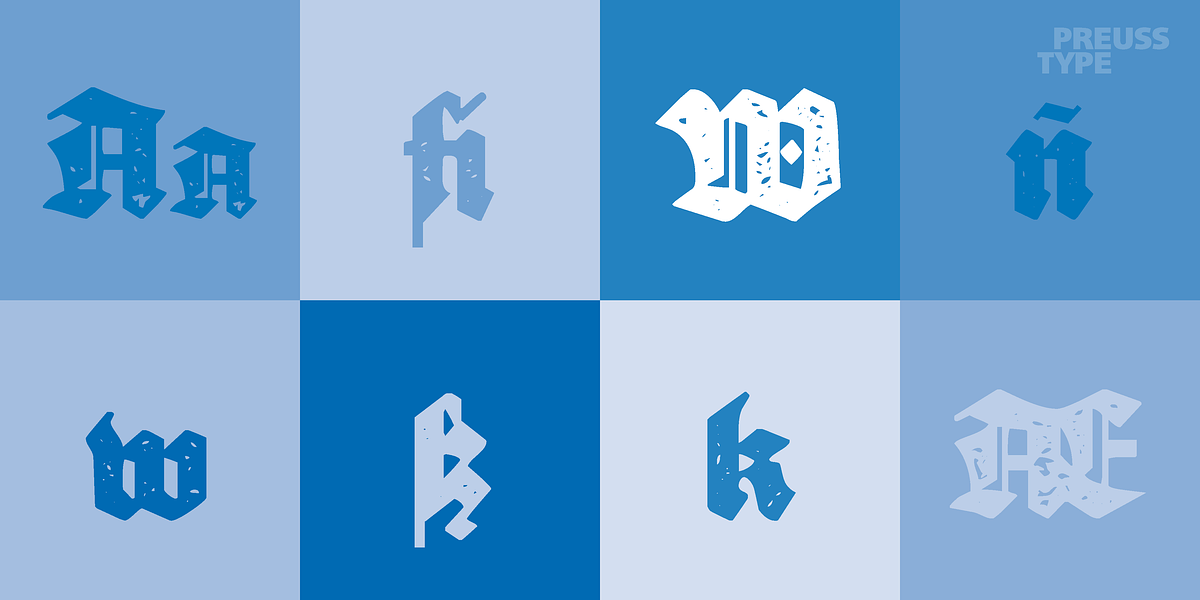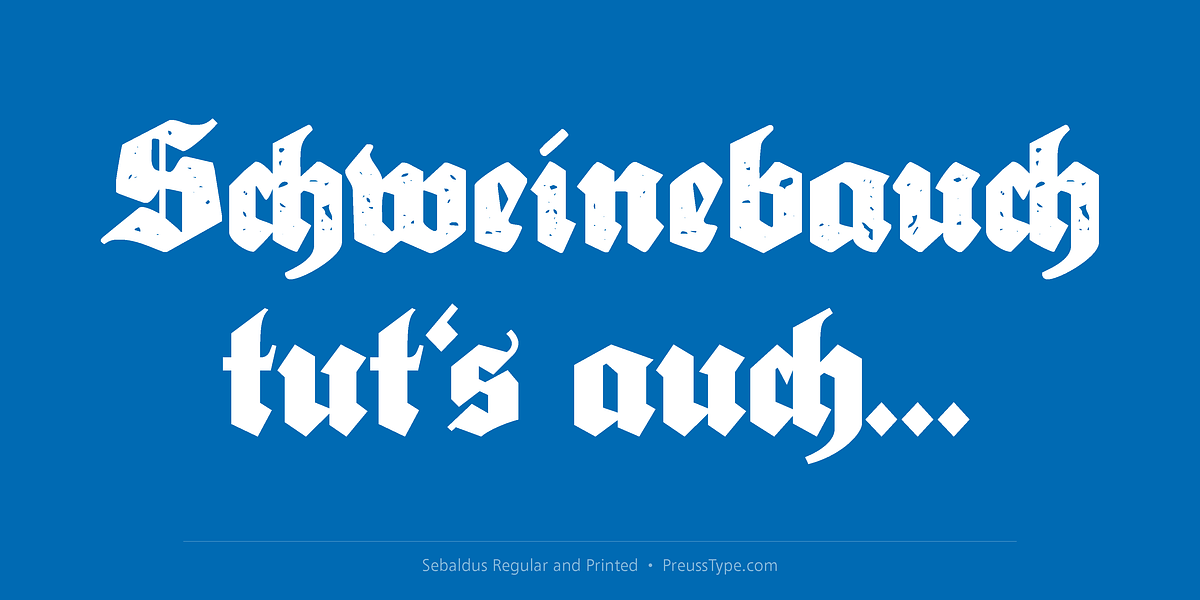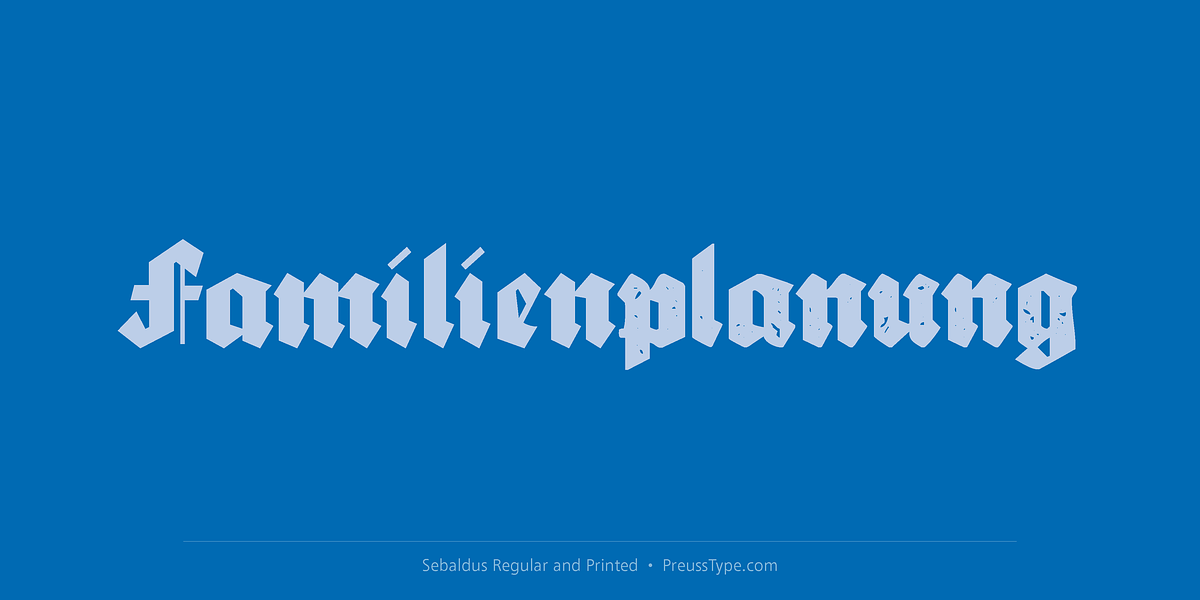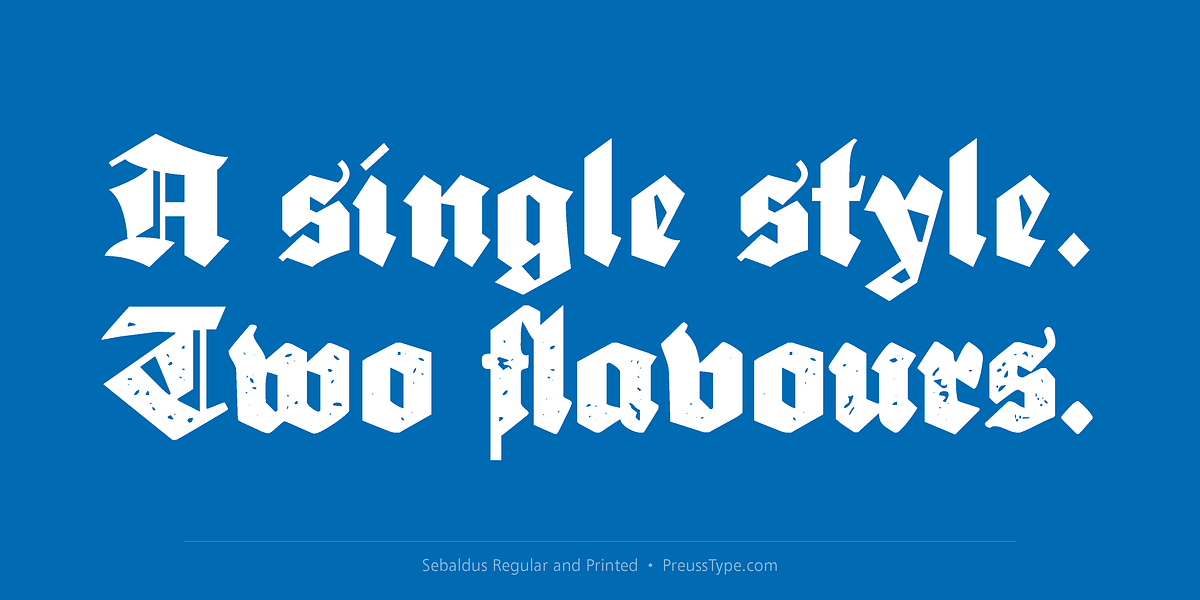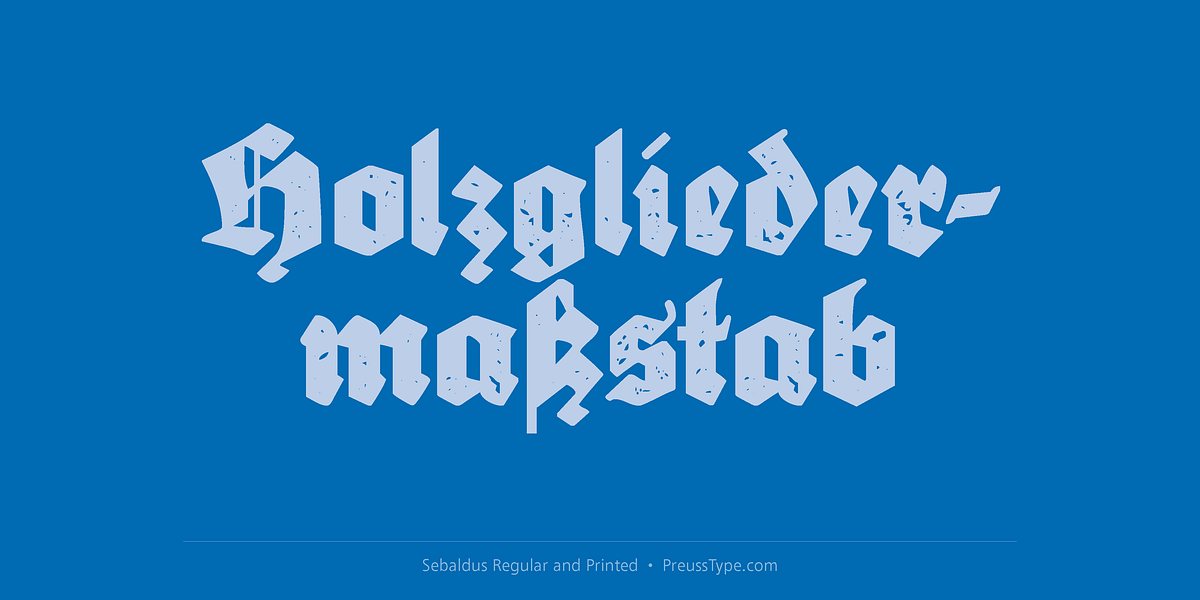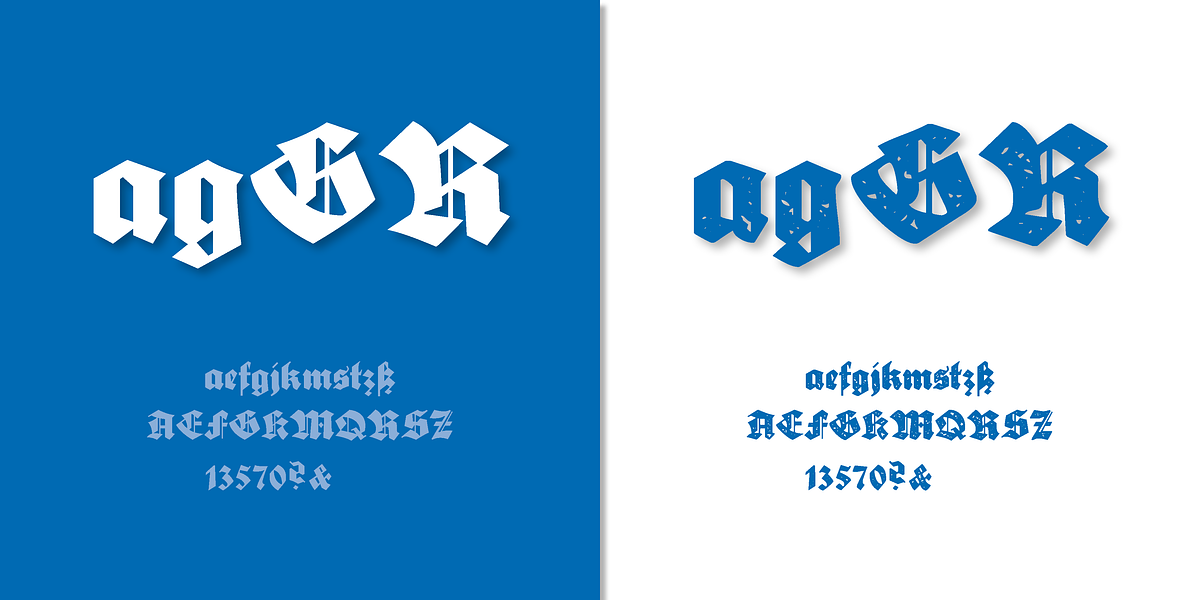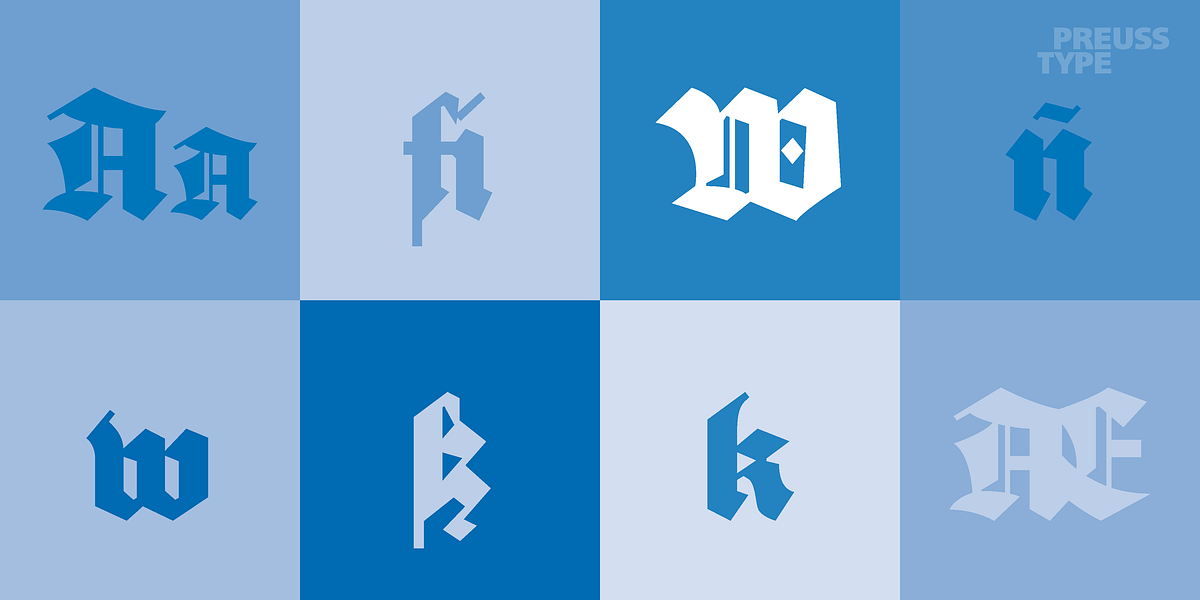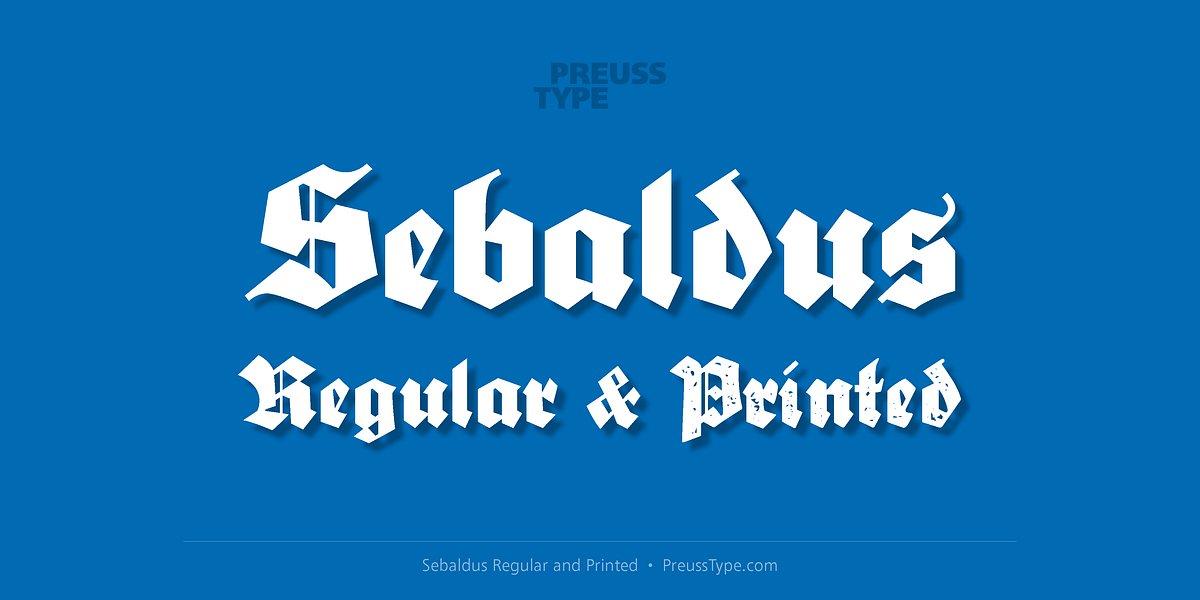
Sebaldus
Sebaldus is a calligraphic blackletter font with distressed features. This makes it suitable for a range of applications, from historical publications to more whimsical uses like horror movie posters or comics.